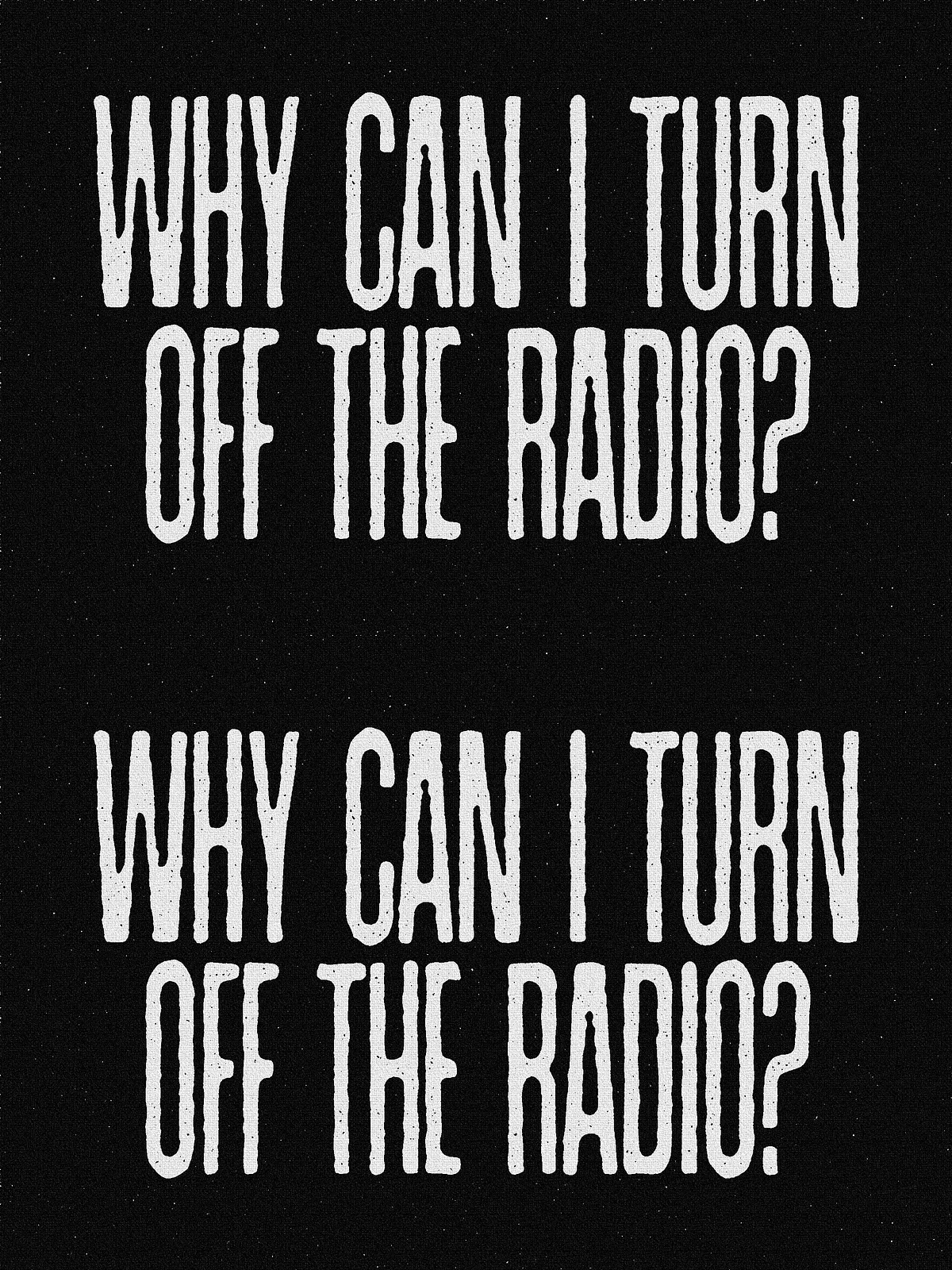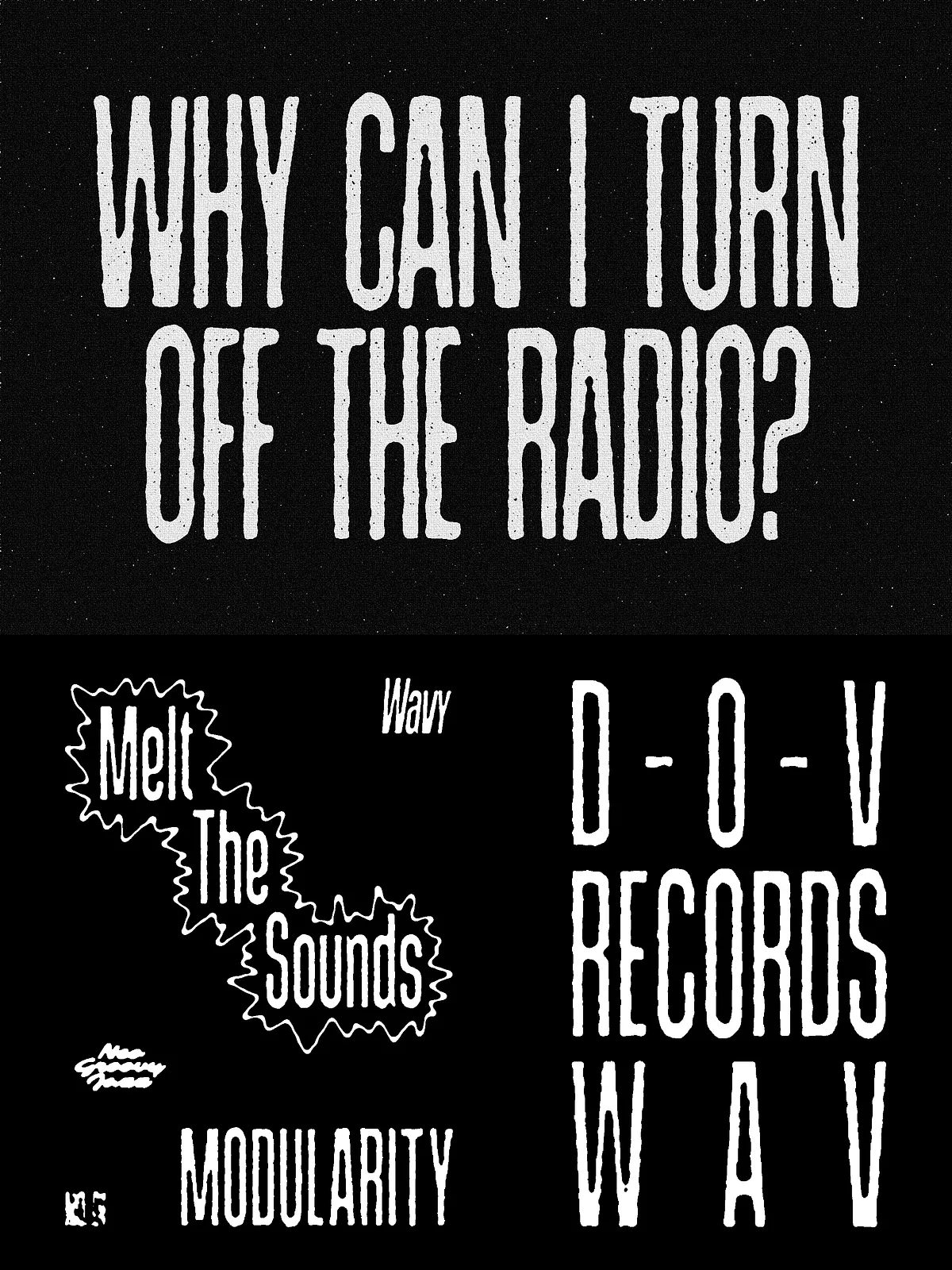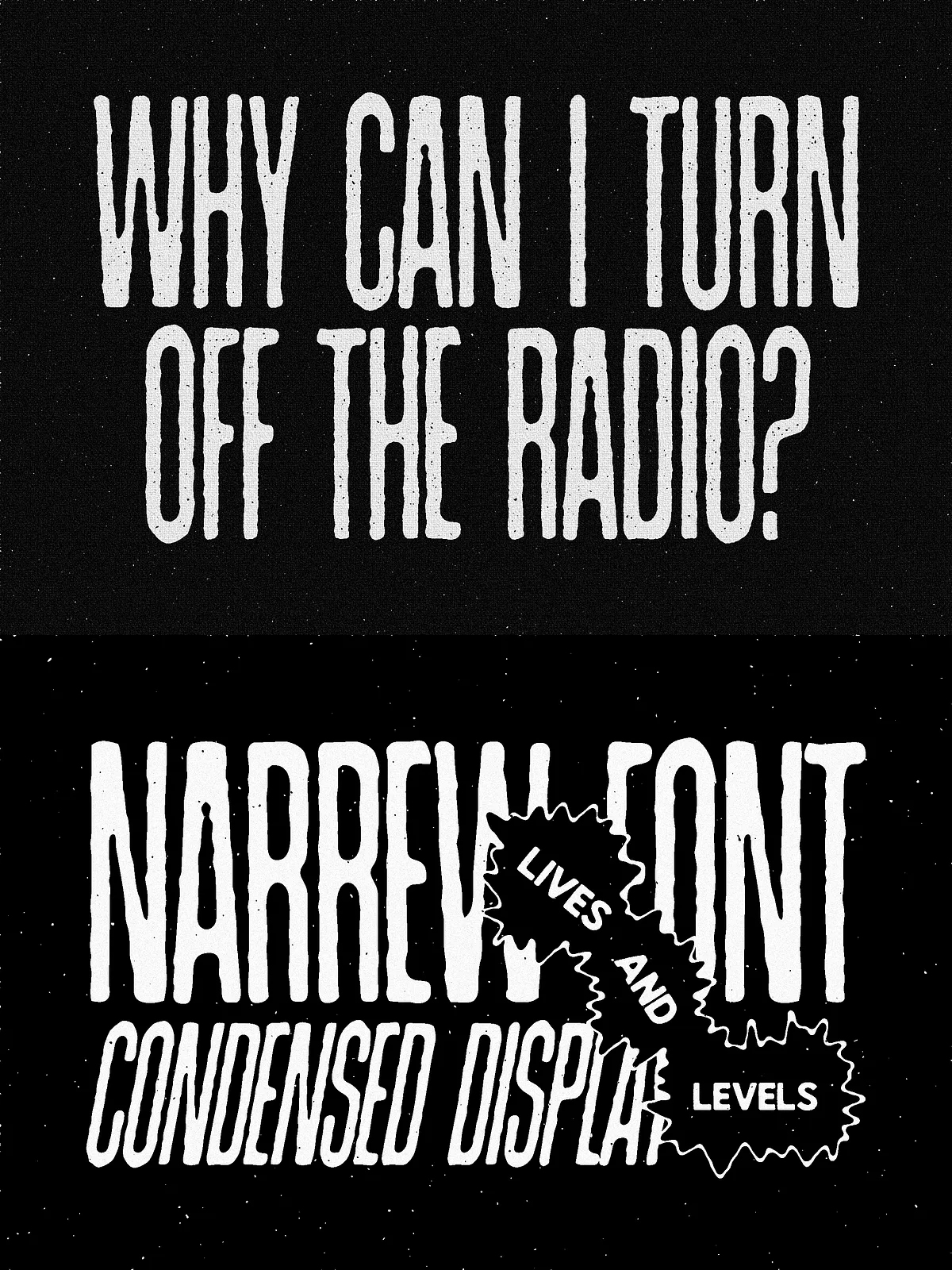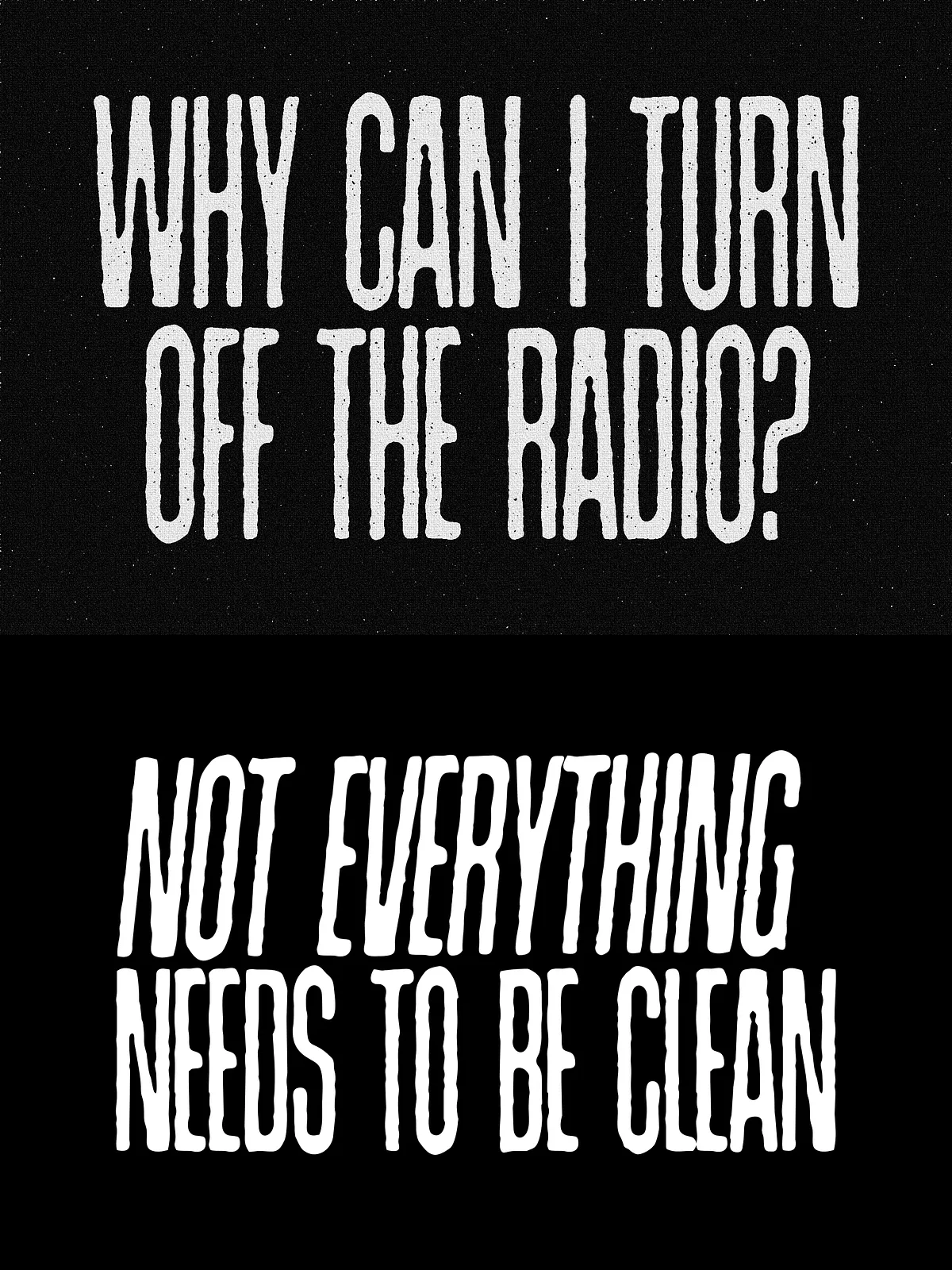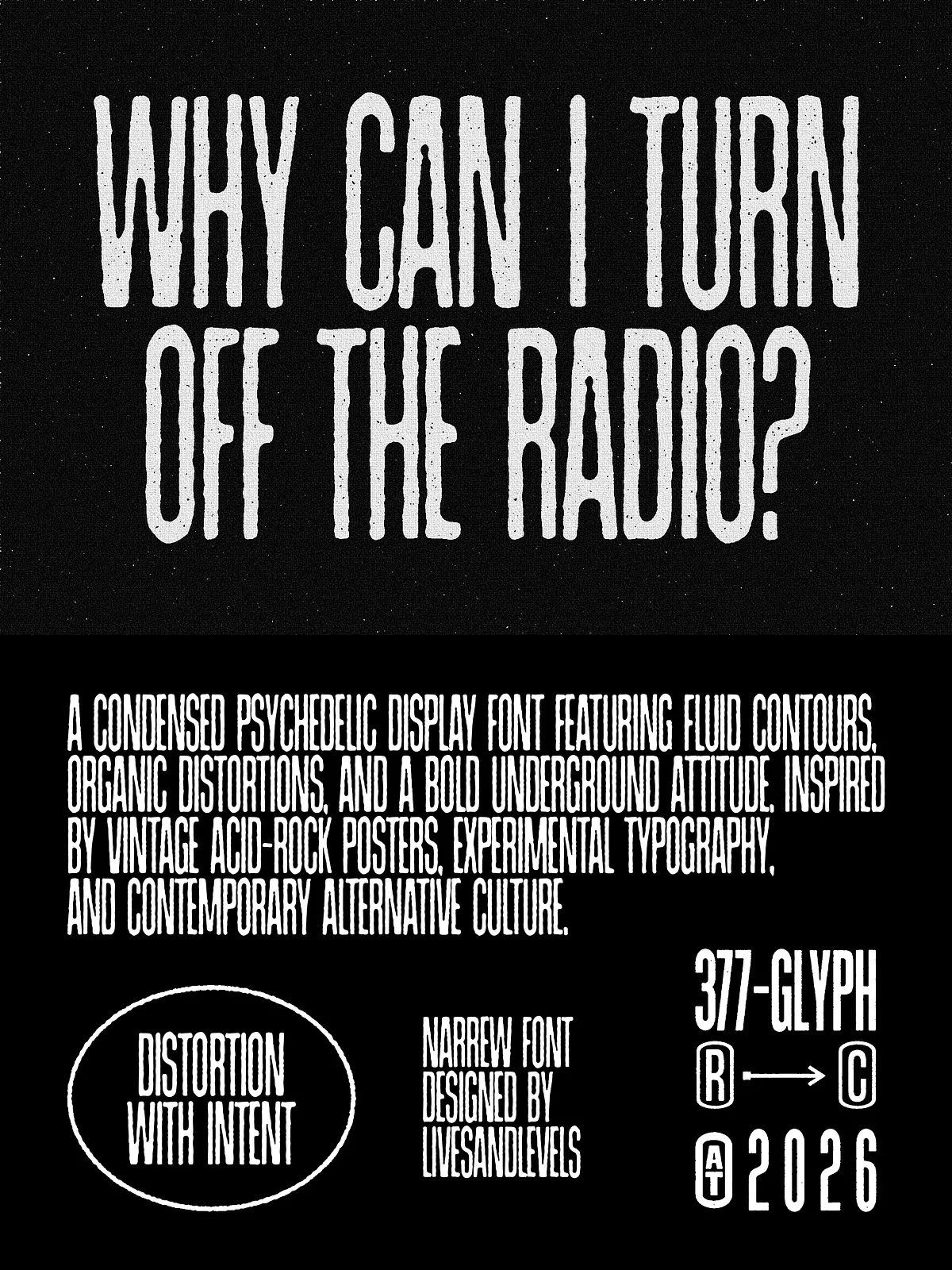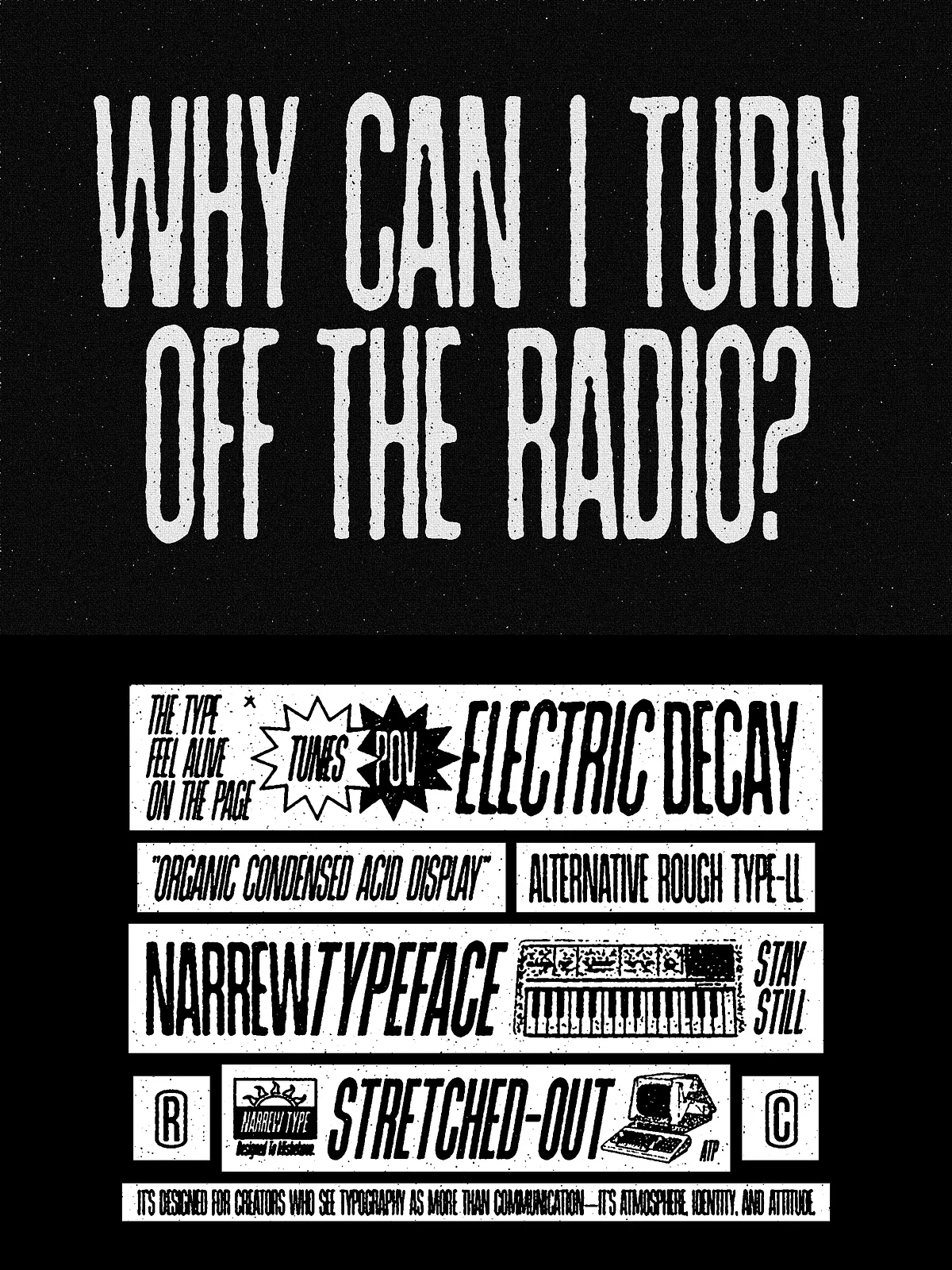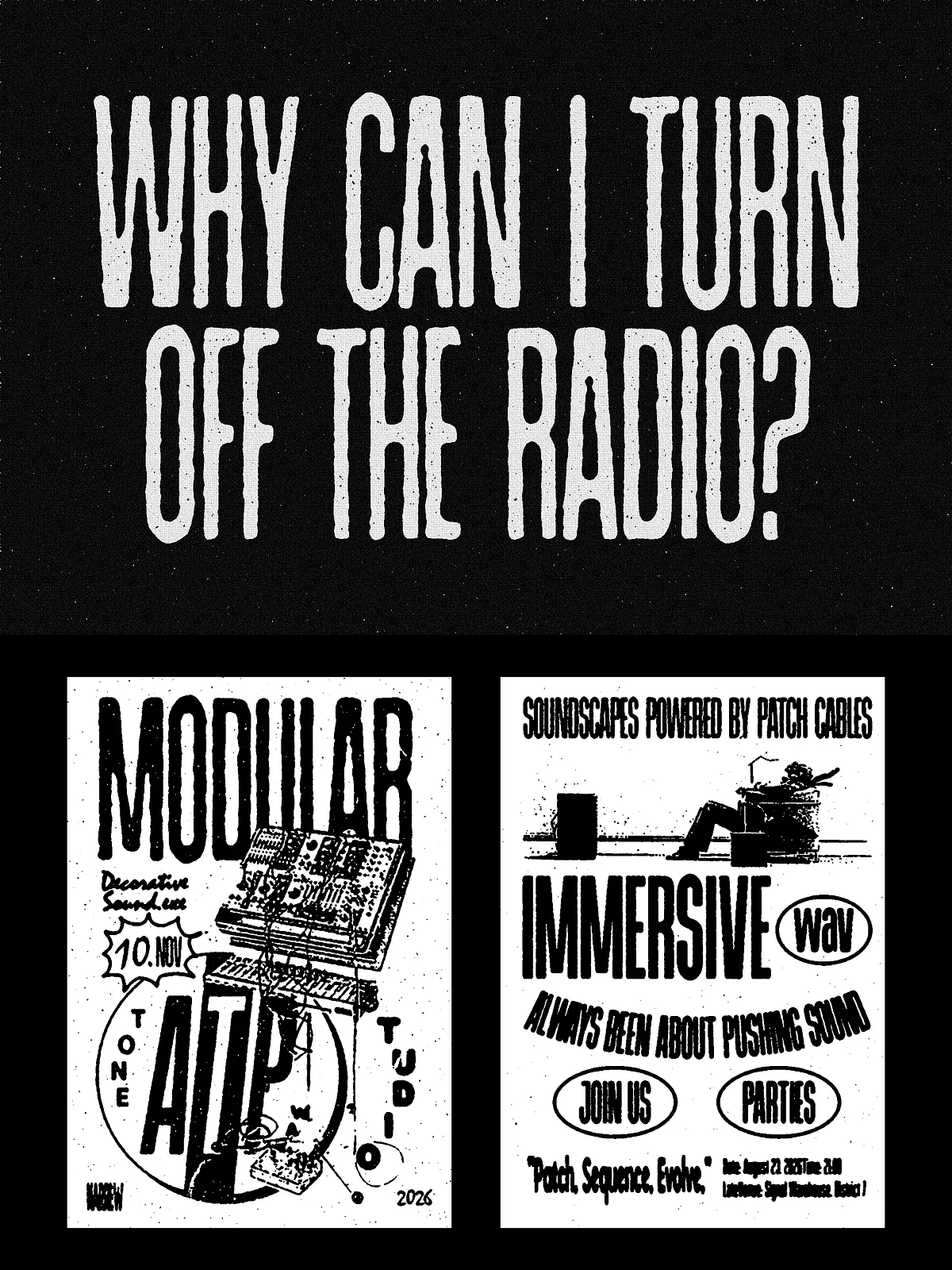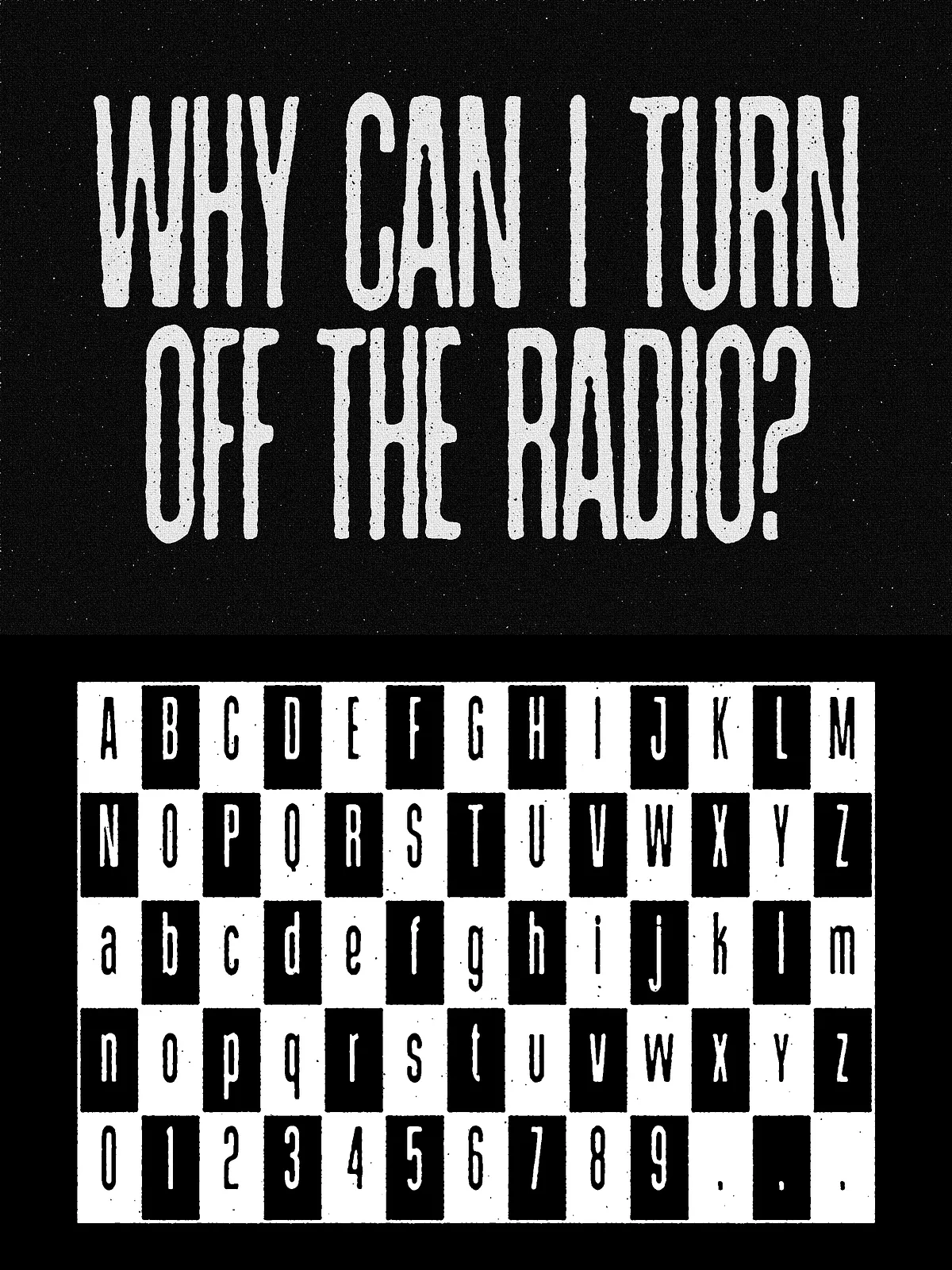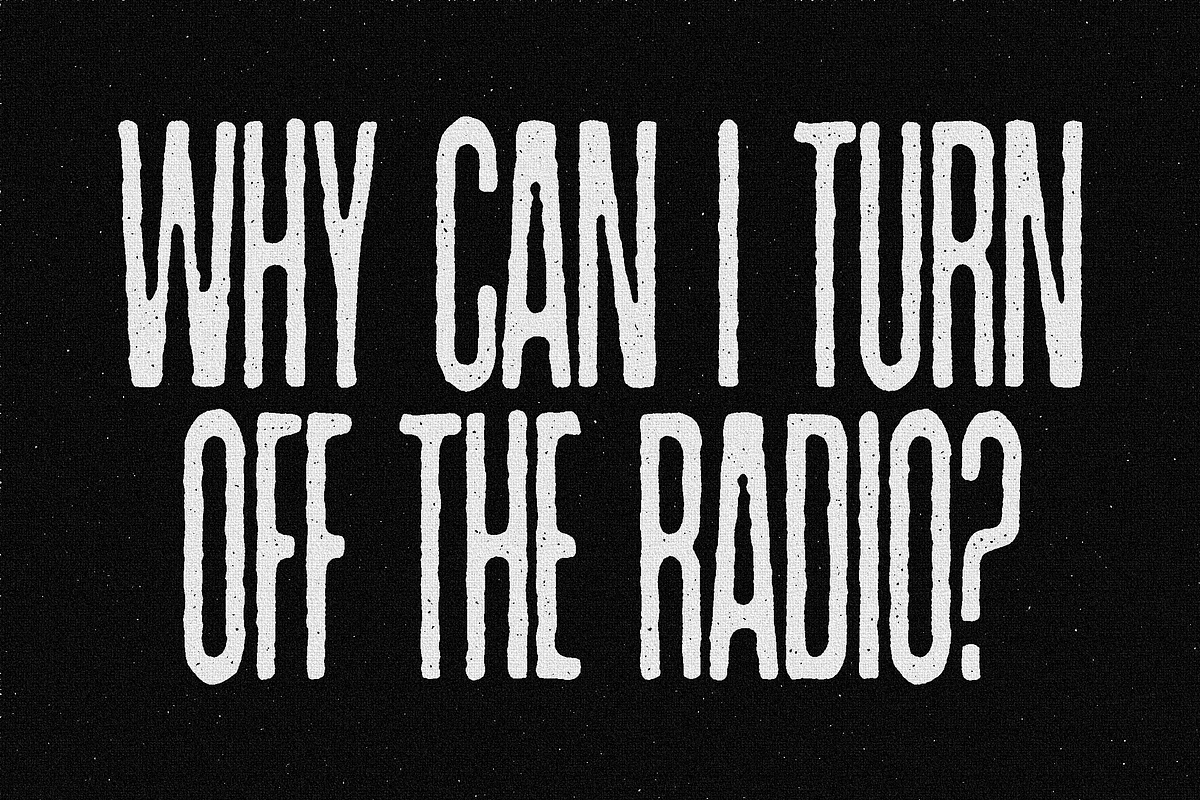
LL Narrew Textured font
This condensed display typeface delivers a striking vertical rhythm through tall, compressed letterforms and a bold elongated structure. Designed to make headlines and posters immediately arresting, the face balances raw expression with clear readability. Slightly irregular edges and subtle distortions give each glyph an organic, handcrafted personality that works equally well for vintage horror aesthetics and contemporary experimental typography. Use this font to create tension, mystery, and dramatic branding that stands out in print and on screen.
Bold, Tall Proportions
The typeface emphasizes verticality and compression. Letterforms appear elongated and dense, producing an impactful silhouette that commands attention at display sizes. This structure creates strong typographic rhythm in headlines, mastheads, and posters.
Handcrafted Texture & Subtle Distortion
Designed with slightly irregular outlines and controlled roughness, the font retains a handcrafted feel without sacrificing legibility. The deliberate imperfections add character and convey an authentic, tactile presence suitable for branding that seeks a vintage or unsettling mood.
Complete Character Set
The family includes uppercase and lowercase letters, numerals, punctuation, and multilingual glyphs to support extended Latin languages. Clean kerning and thoughtful spacing ensure the font reads well in large display settings and short editorial blocks.
Four Styles for Flexible Hierarchy
• Regular — balanced display weight for titles and editorial use.
• Rough — textured variant with pronounced edge irregularities for atmospheric compositions.
• Bold — heavier weight for maximum impact on posters and packaging.
• Black — ultra-heavy style for dominant branding headlines and logotypes.
Recommended Uses
Headlines & Posters
Exploit the tall, condensed shapes to craft headlines that dominate layouts. The strong vertical rhythm works well on movie posters, event flyers, and album covers where a dramatic tone enhances the message.
Branding & Logotypes
Use the Bold or Black styles for logotypes that require authoritative presence. The Rough style adds a handcrafted or distressed personality for brands inspired by Americana, horror, or retro industrial themes.
Editorial & Packaging
Apply the typeface to magazine covers, feature spreads, labels, and packaging where a bold, distinctive display face provides instant recognition and visual hierarchy.
Pairing and Design Tips
Pair with Neutral Bodies
Balance the display font with a neutral sans-serif or a clean serif for body copy. Let the condensed face carry the headline and accents while the support font manages readability in paragraphs.
Scale and Tracking
For maximum effect, use larger sizes and slightly increased line-height to enhance the vertical rhythm. Tighten tracking subtly at very large sizes to maintain compact visual weight, and increase tracking for small display contexts to preserve legibility.
Texture and Effects
When you want more grit, apply texture overlays, halftone screens, or subtle grain to complement the Rough style. For modern editorial work, pair the Regular style with minimal textures and high-contrast photography.